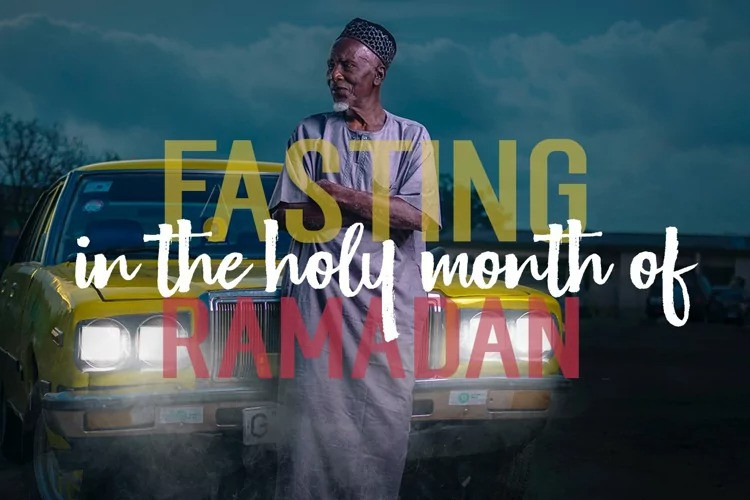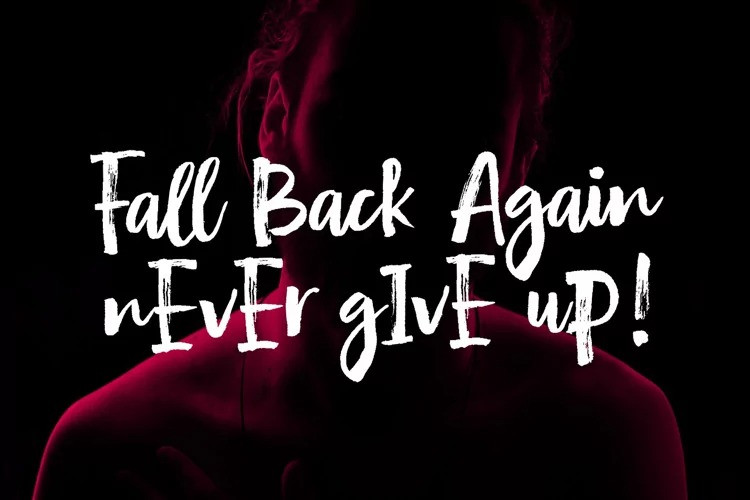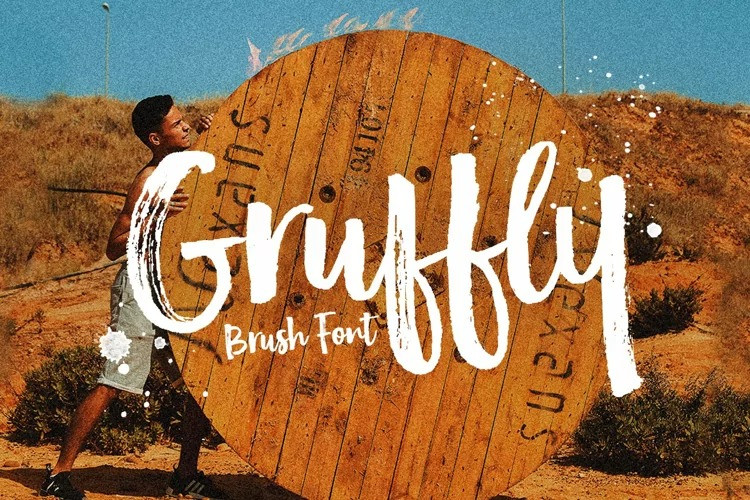
Gruffly Font
Gruffly Brush Font is a new font brushed very interesting, also provided some ligatures, Perfect for projects brands, logos, product packaging, posters, invitations, greeting cards, news, blogs, everything including personal charm etc.